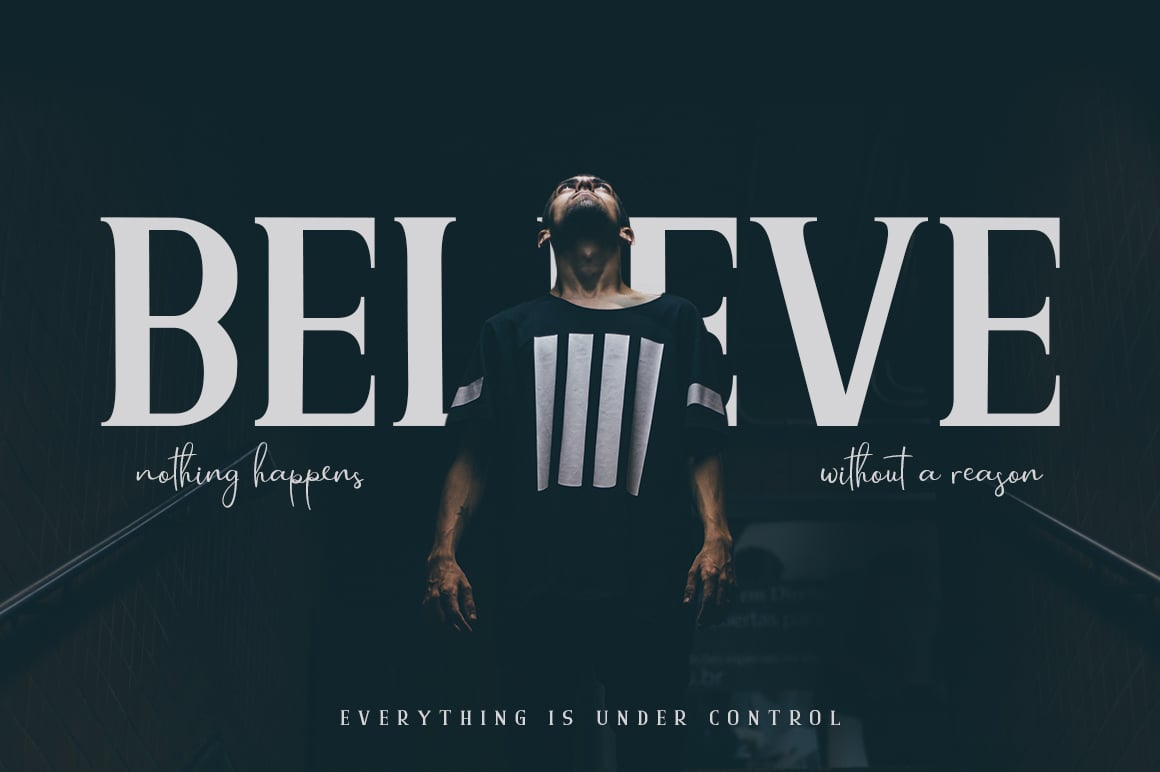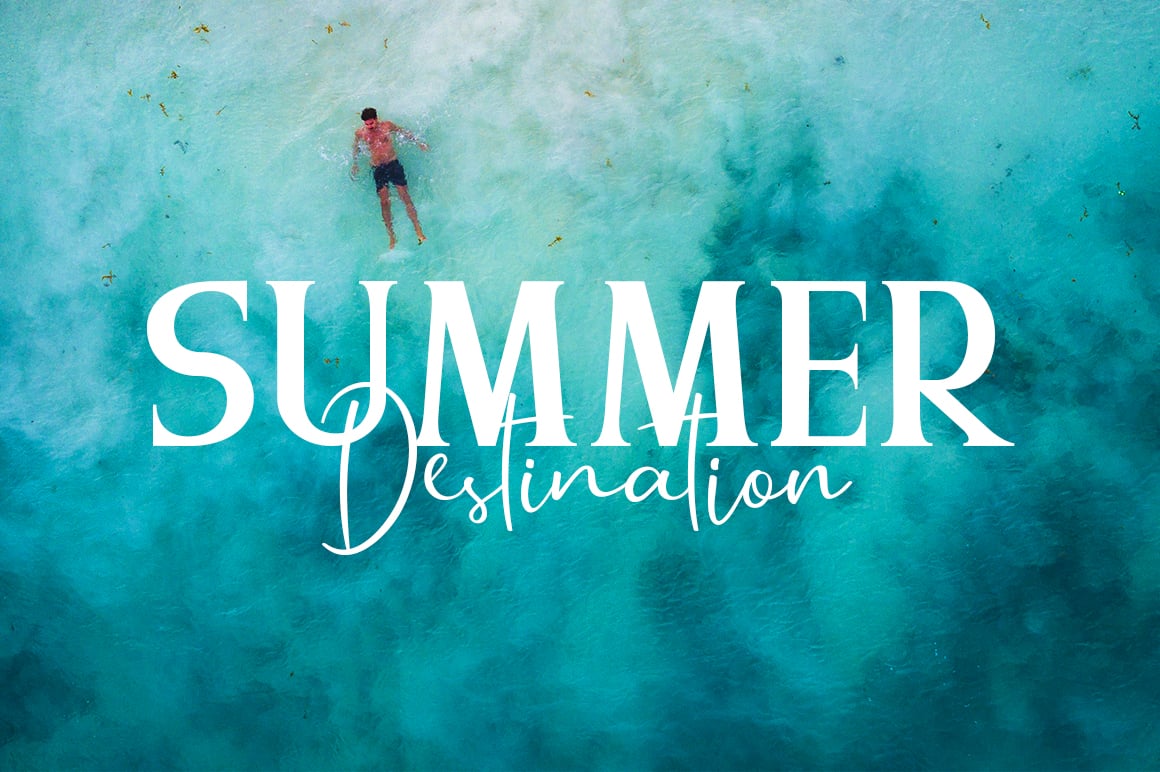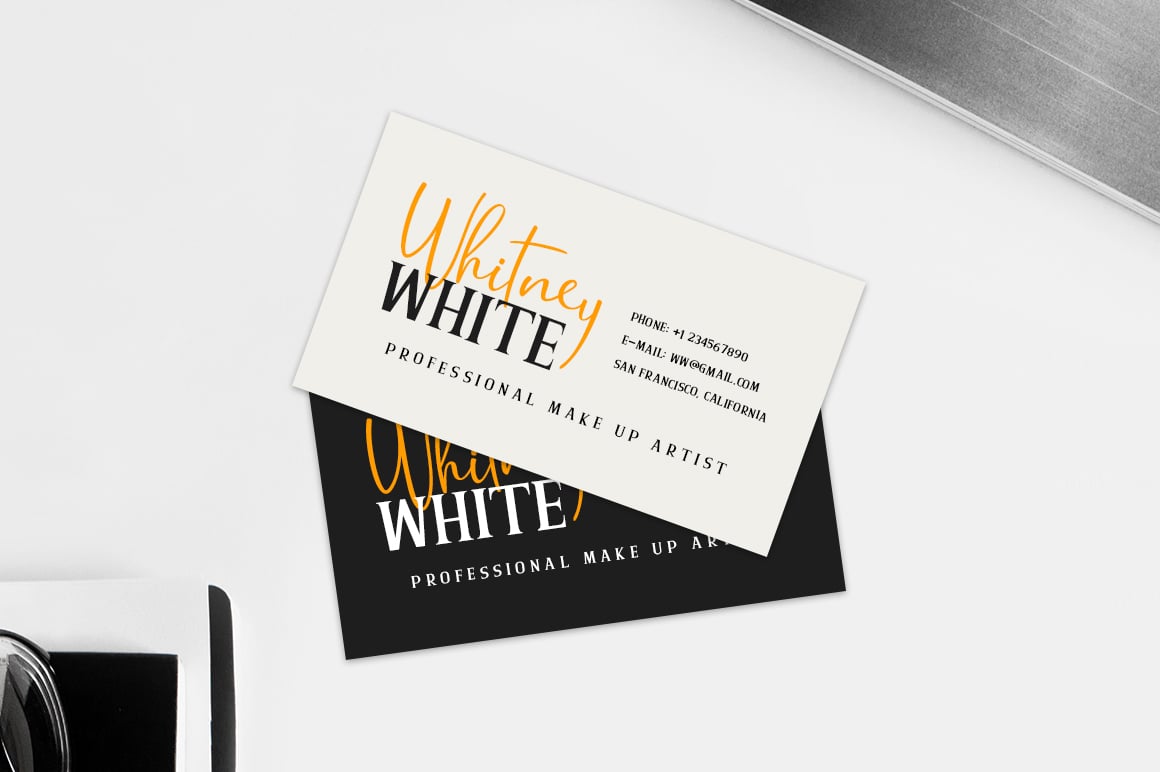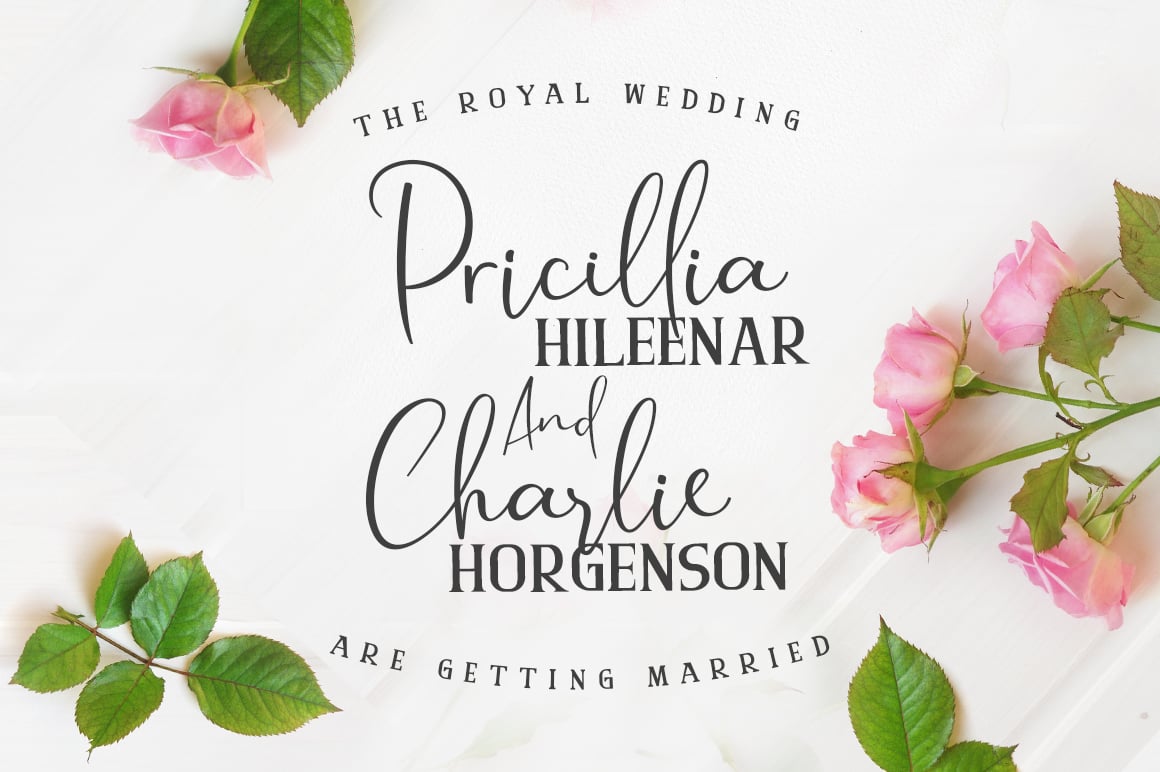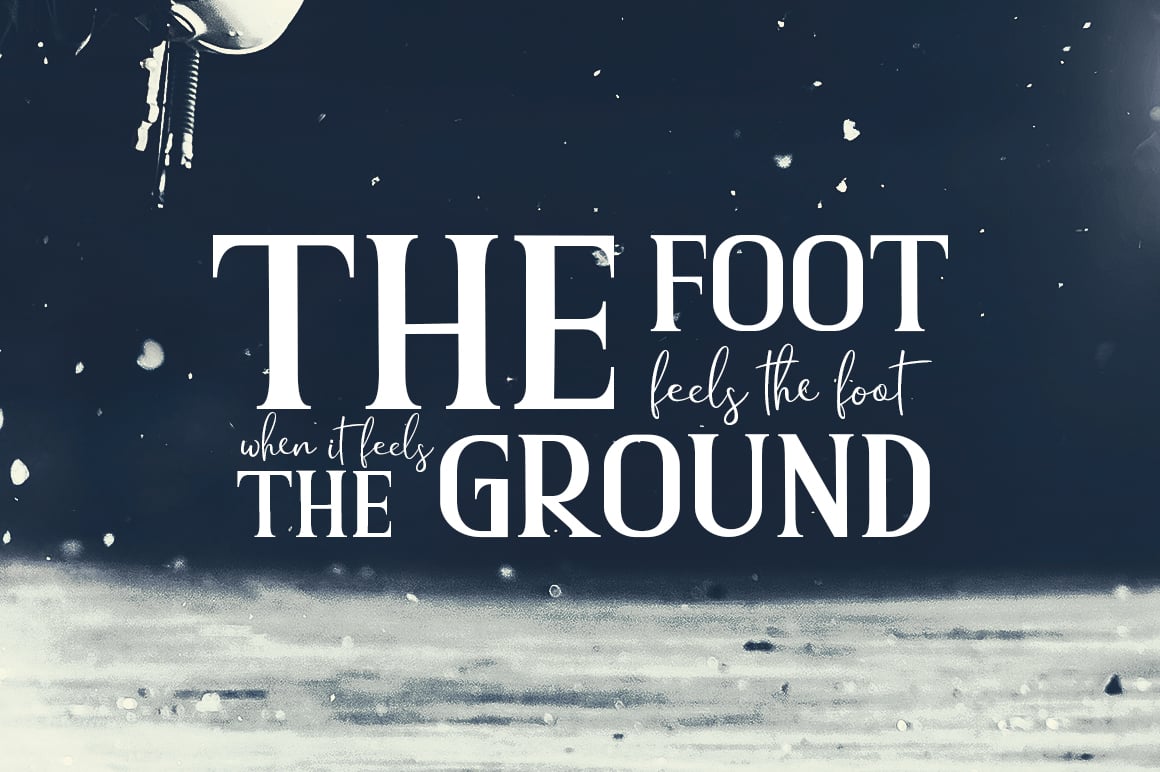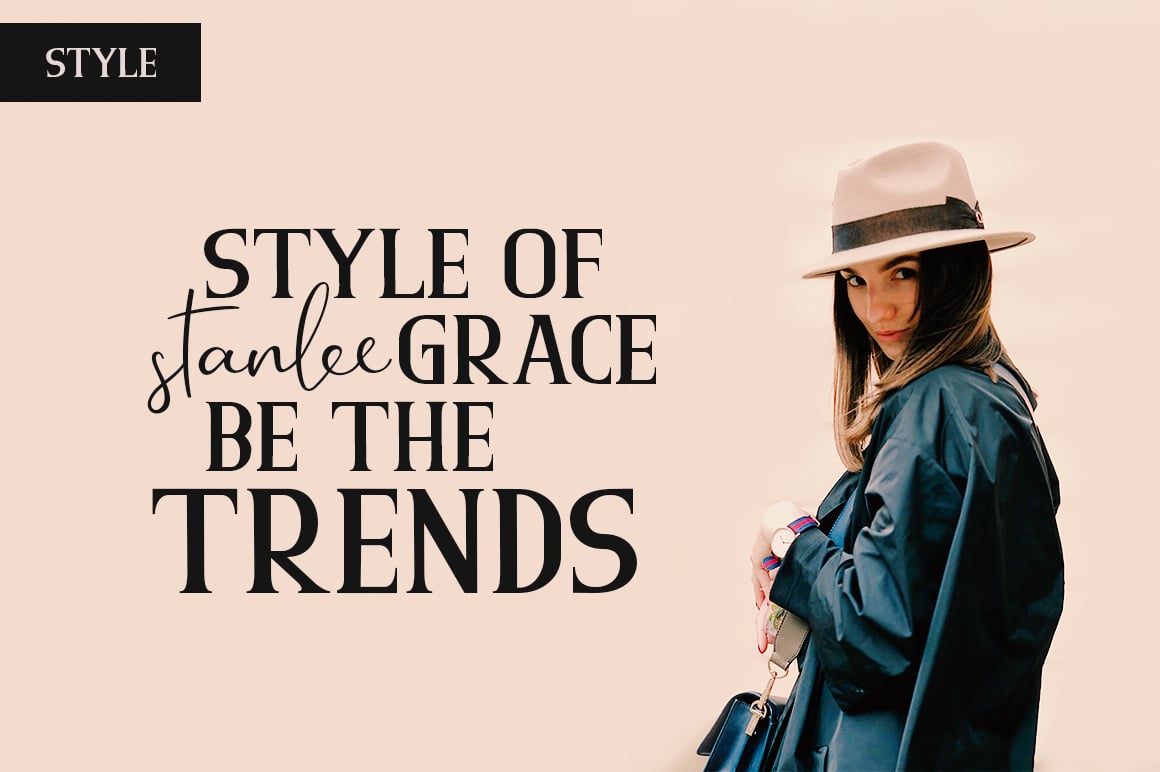
Husterdun Font Duo
Husterdun Font Duo – A dynamic pair of serif and script fonts. Elegance is the basic principle used to design Husterdun fonts, both of them are sophisticated. The combination between the two fonts gives a classy touch to every design, including social media posts, logo, branding design, product design, wedding design, advertisement design, poster, quote, and many more.
- Husterdun Script : A clean script font including uppercase and lowercase, numeral and punctuation, ligatures, alternate characters, basic multilingual characters, with PUA Encoded (all glyphs is accessible).
- Husterdun Serif : An uppercase serif font with numeral, punctuation, and basic multilingual characters.